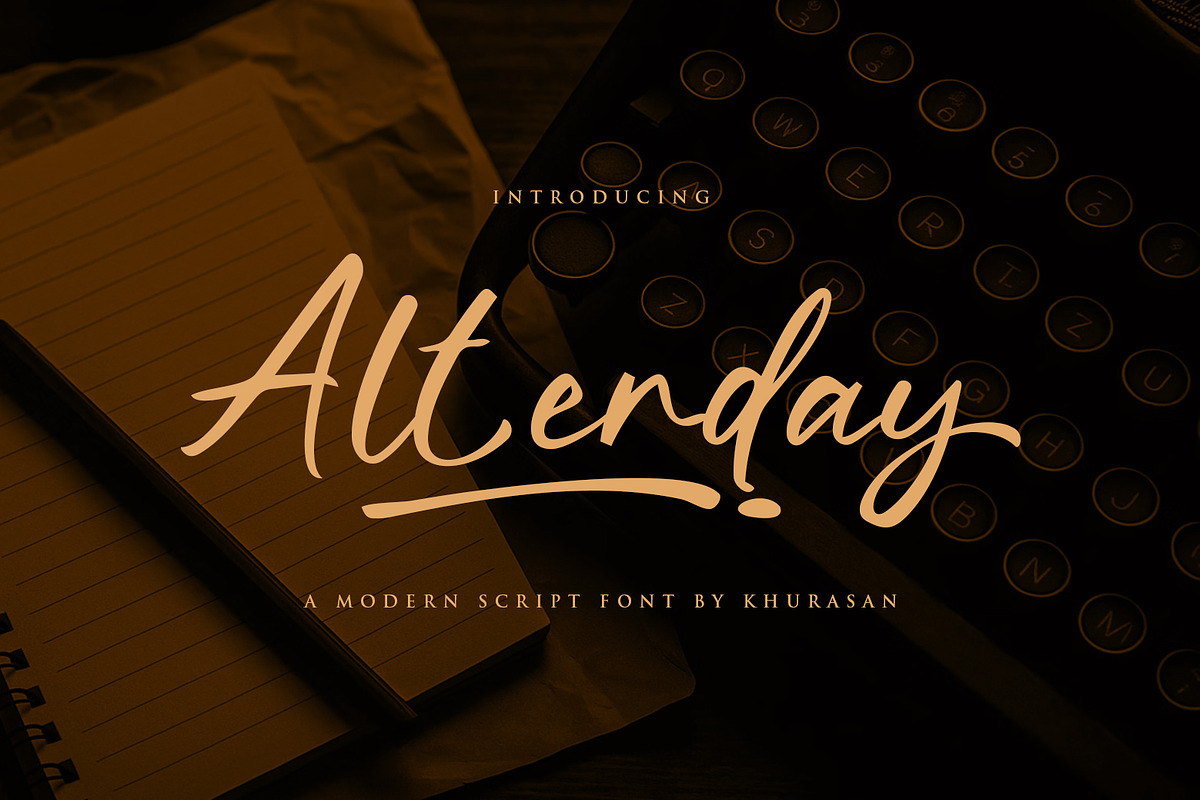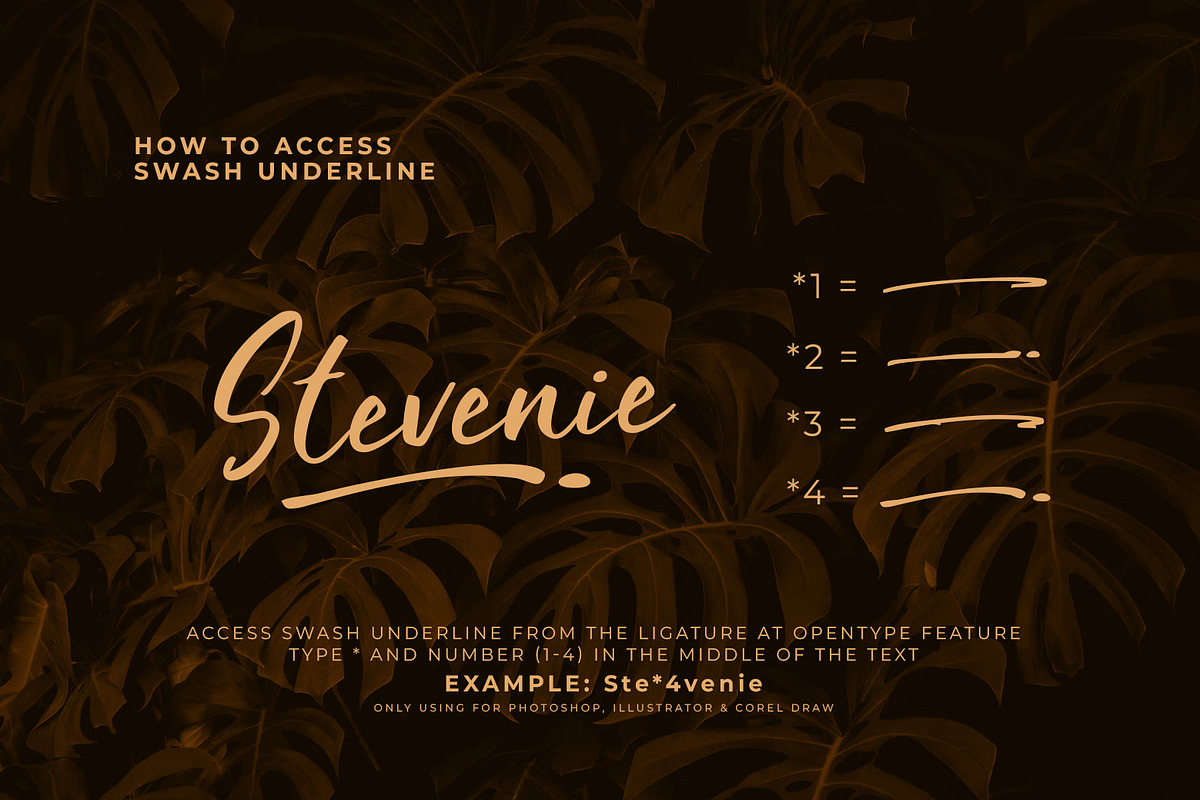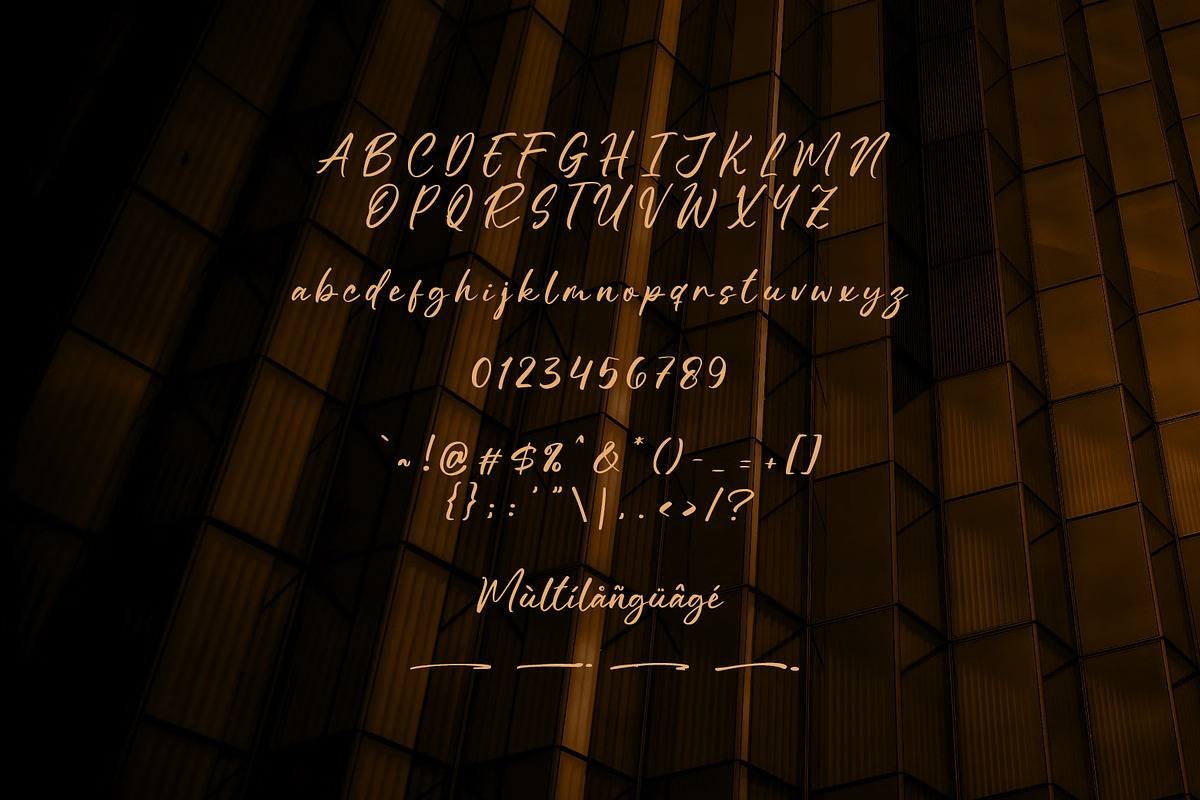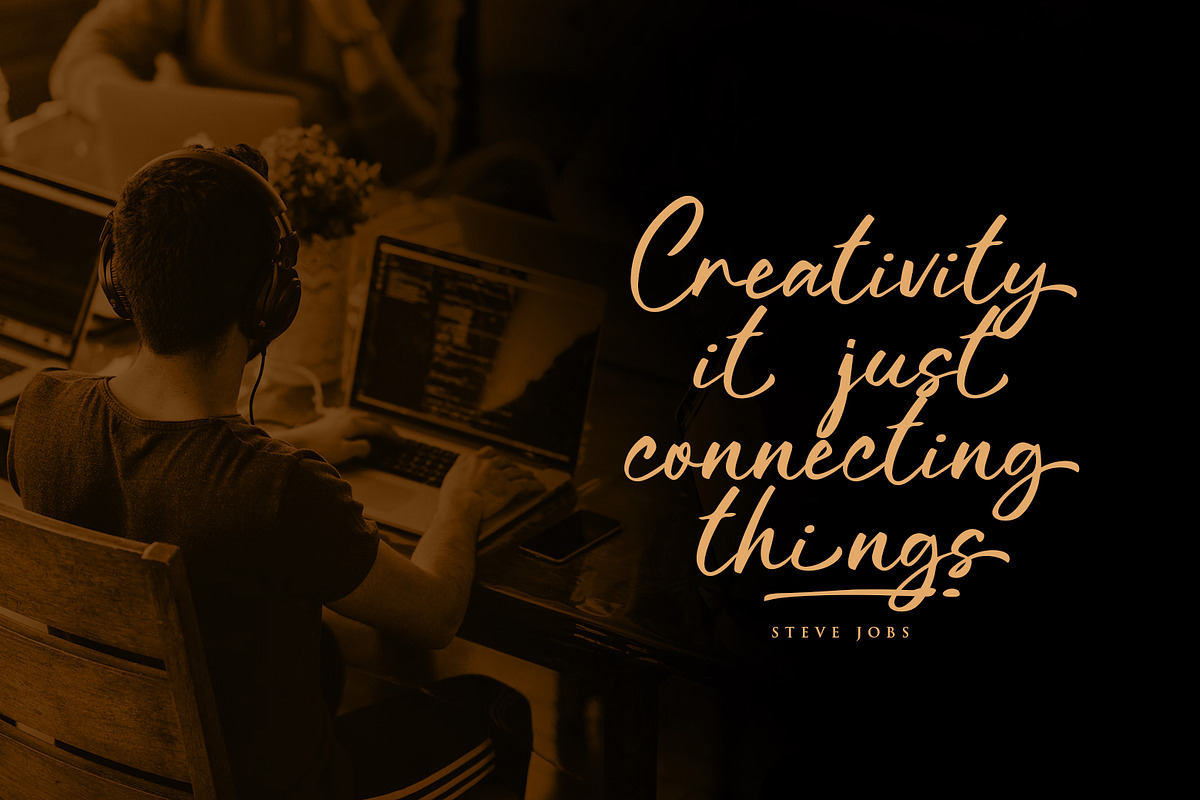
Alterday
Alterday is a modern and cute display font perfect for posters, logos, magazines, book covers, banners, and many more! Get this amazing font, and use it to create lovely designs. It can easily be matched to an incredibly large set of projects, so add it to your creative ideas and notice how it makes them stand out!
Alterday font suitable for logo, branding, greeting card, poster and any design that you create.